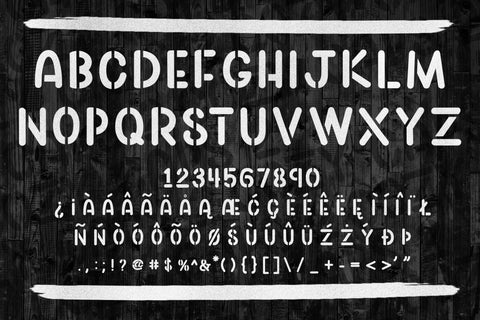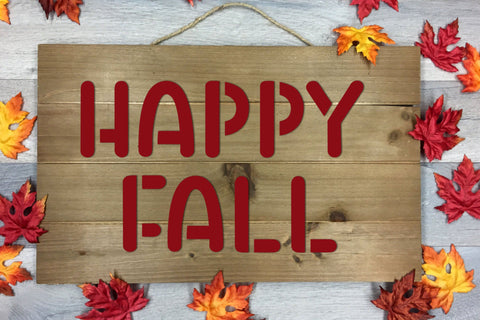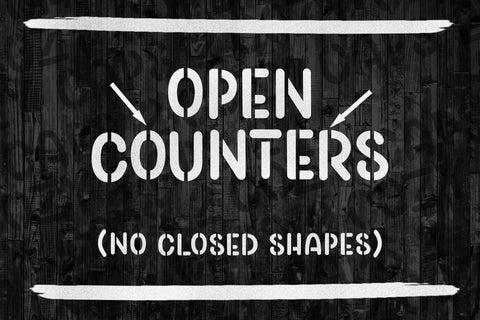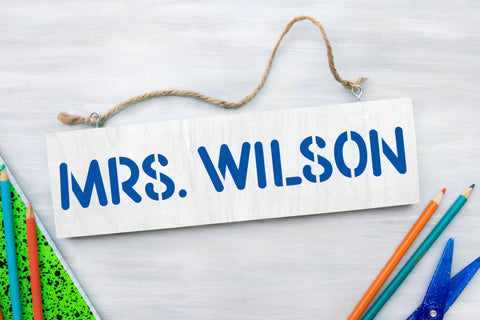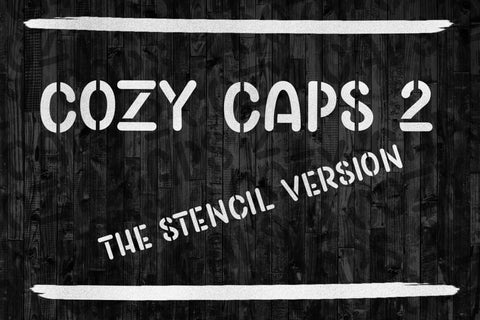
Cozy Caps 2 - The Stencil Version
Cozy Caps 2 Stencil font is a bolder version of my popular Cozy Caps font with all open counters (no closed shapes). It is a handwritten, print font made up of capital letters A-Z, numbers 0-9, punctuation, and some accented characters. Cozy Caps 2 is perfect for for stenciling wood signs, doormats, reverse canvases and many other stencil projects.
Because this is an all caps font, upper and lowercase keys are the same.